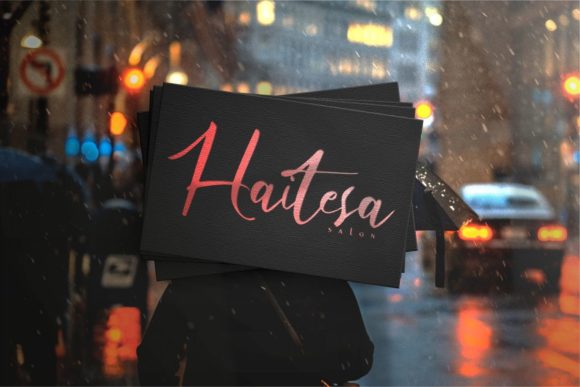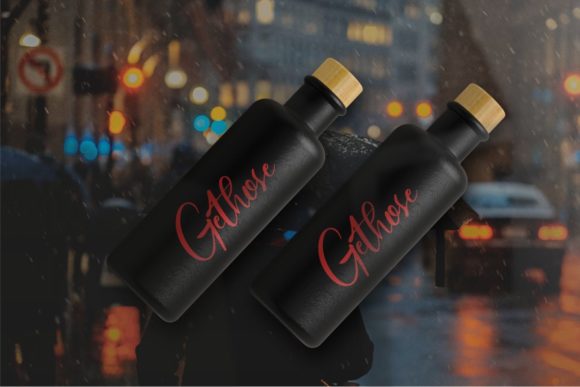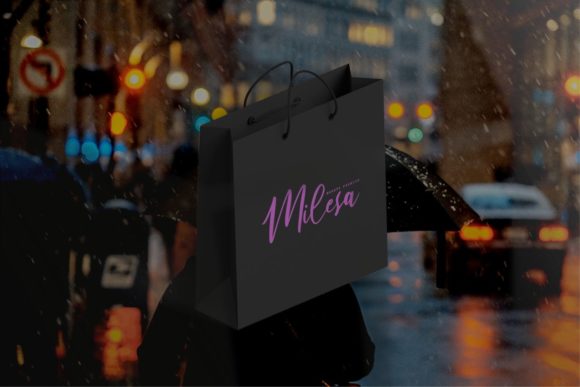
About Rieban Font
Rieban is a delicate and elegant handwritten font. Its distinct and well balanced letters make this font a masterpiece. Fall in love with its incredibly versatile style and use it to create spectacular designs!